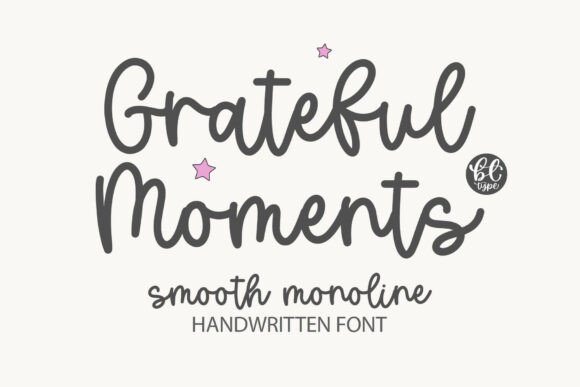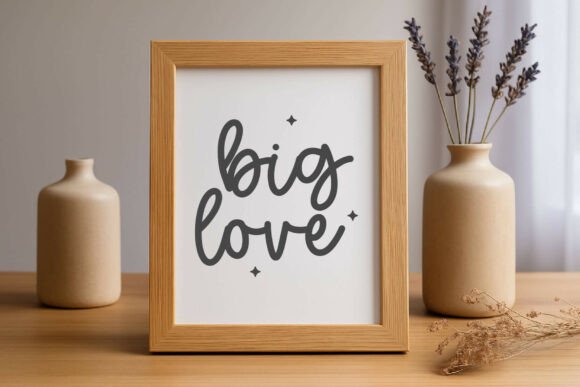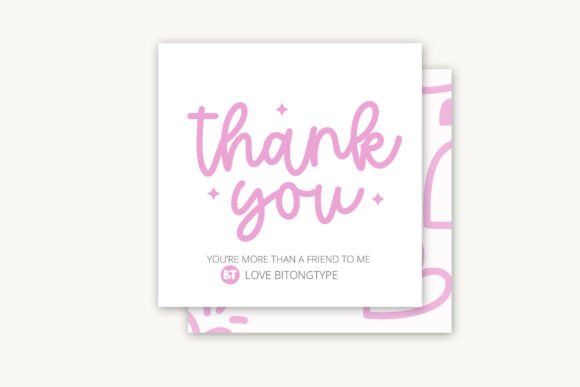
Gratefulmoments Font
💚 Grateful Moments is a smooth handwritten script font in a cute monoline style. Perfect for Cricut crafts, SVG cut files, digital planners, greeting cards, invitations, and custom shirts, this font adds a warm and personal touch to every design.
The Grateful Moments Smooth Monoline Handwritten Font is a charming and heartfelt typeface that radiates warmth and sincerity through every curve and stroke. Its fluid monoline structure gives it a balanced elegance while maintaining the natural flow of authentic handwriting, making it perfect for designs that require a personal and uplifting touch. The rounded edges and smooth lines create a friendly and approachable mood, ideal for wedding invitations, heartfelt quotes, greeting cards, branding, and digital projects that need a cozy yet polished feel. Grateful Moments captures the essence of joy, gratitude, and creativity, offering designers a versatile tool that can effortlessly transform words into emotions and bring a human touch to any creative project.